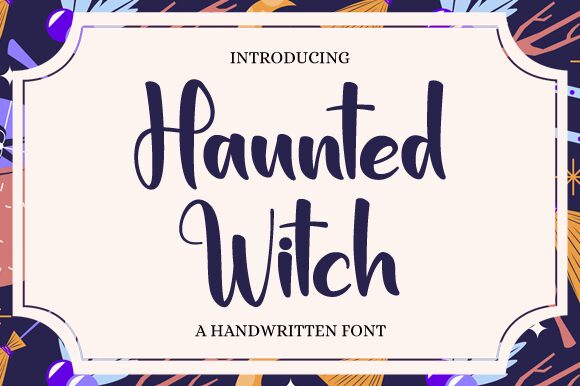
Haunted Witch, designed by Nirmala Creative, offers a unique handwritten aesthetic with a semi-condensed width that exudes personality and charm. This font captures an enchanting mix of elegance and mystery, making it perfect for those seeking to infuse a touch of supernatural flair into their creative endeavors. The fluidity of its characters provides a sense of individuality and whimsy, ensuring that your project stands out.
With its distinct style, Haunted Witch is ideal for thematic event invitations, book covers dealing with fantasy or horror genres, and branding projects that require a hint of the mystical. Its distinctive handwritten quality adds an intimate and bespoke feel to any design it graces. Embrace the bewitching beauty of Haunted Witch to elevate your creative work with its spellbinding appeal.